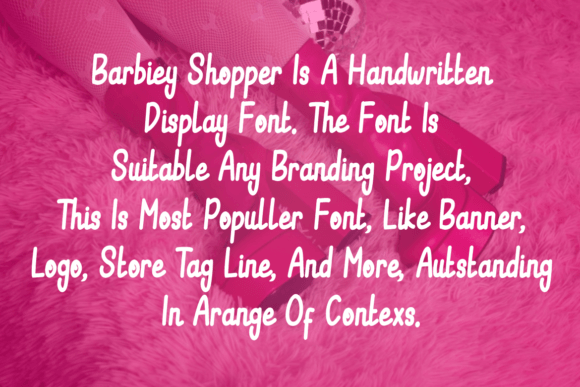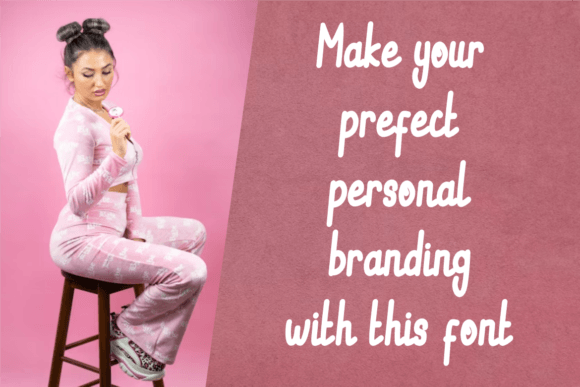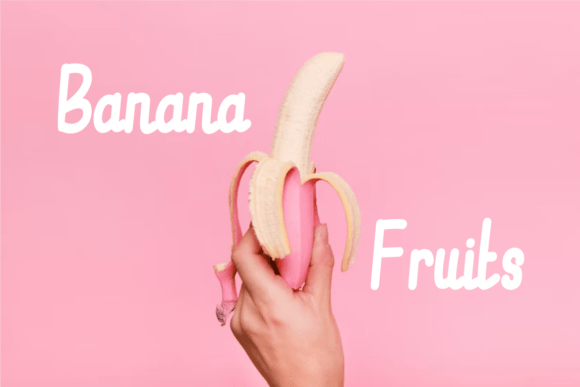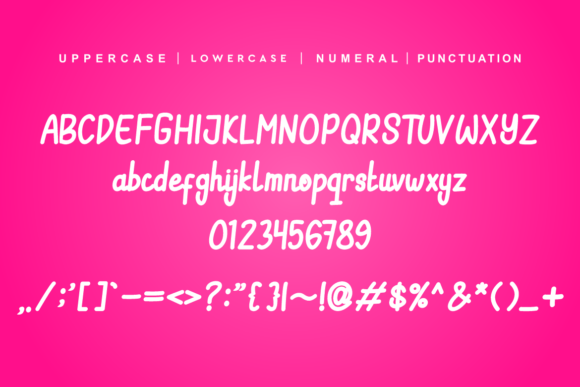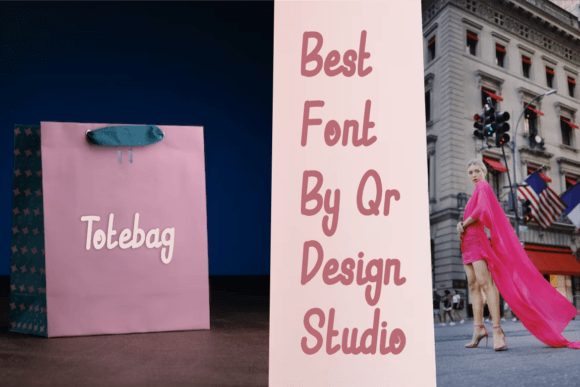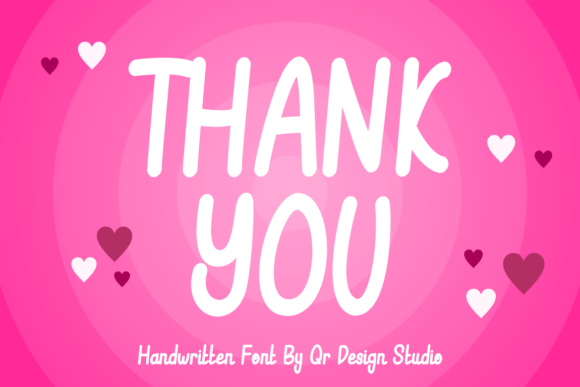
Unlock the Magic of Childhood Creativity with the Barbiey Shopper Font
Who hasn’t been mesmerized by the simple joy of crafting a handmade card for a loved one? For many of us, the spark of creativity is ignited during these moments of tender expression. As we rummage through our supplies, the thrill of the hunt for the perfect font to match our vision begins. This is where the Barbiey Shopper Font comes into play – a charming, easy-to-read handwritten font that embodies the essence of childlike wonder.
This delightful font is perfect for a variety of creative pursuits, from crafting and digital design to presentations and greeting cards. Its impeccable friendliness makes it an invaluable asset for designers looking to add a touch of whimsy to their work. Whether you’re a seasoned pro or just starting out, the Barbiey Shopper Font is sure to become your go-to companion for all your creative endeavors.
- Unique Characteristics: Features a playful and modern design aesthetic, perfect for fashion, lifestyle, and retail branding.
Barbiey Shopper Font Review
- ✨ The font’s playful and modern design makes it perfect for fashion and lifestyle brands. It’s perfect for creating eye-catching headlines and titles.
- ✨ The font is highly customizable, allowing you to adjust the size, color, and style to fit your design needs.
- ✨ The font is available in a range of weights, from light to bold, making it versatile for various design projects.
- ⚠️ The font may not be suitable for formal or professional designs, as its playful nature may come across as too casual.
- ⚠️ The font may not be as readable at smaller sizes, which could be a concern for designs where text is a prominent element.
The Barbiey Shopper Font is a great addition to any designer’s toolkit. While it may have some limitations, its versatility and customizability make it a great choice for fashion and lifestyle brands. With a little creativity, you can use this font to create stunning designs that grab attention.
Some tips for getting the most out of the Barbiey Shopper Font include:
- Use it for titles and headings to add a touch of whimsy to your design.
- Combine it with bold or italic text for emphasis.
- Use it in invitations, party decorations, or other festive designs.
Alternatives to Barbiey Shopper Font
Lato is a modern sans-serif font designed by Łukasz Dziedzic. It is suitable for use in digital products, branding, and advertising. Lato has a similar feel to Barbiey Shopper Font, but it is more versatile and has a wider range of weights.
Comparison: Lato is more legible at small font sizes and has a more uniform spacing than Barbiey Shopper Font.
Open Sans is a clean and modern sans-serif font designed by Steve Matteson. It is suitable for use in digital products, websites, and applications. Open Sans has a similar friendly feel to Barbiey Shopper Font, but it is more readable and has a wider range of weights.
Comparison: Open Sans is more readable at small font sizes and has a more consistent line height than Barbiey Shopper Font.
Montserrat is a geometric sans-serif font designed by Julieta Ulanovsky. It is suitable for use in digital products, branding, and advertising. Montserrat has a similar urban feel to Barbiey Shopper Font, but it is more versatile and has a wider range of weights.
For optimal readability, we recommend using the Barbiey Shopper Font at a minimum size of 12 points and a line height of 1.5 to 2 times the font size. This will ensure clear and legible text in various design contexts.